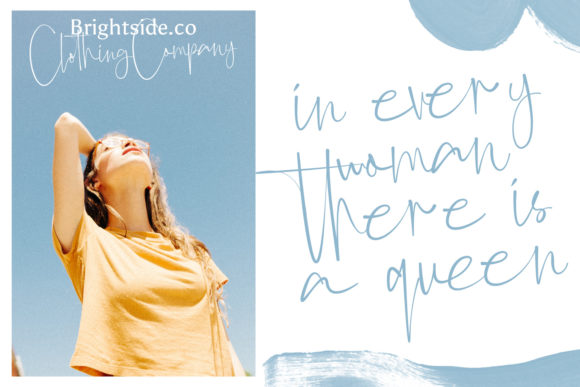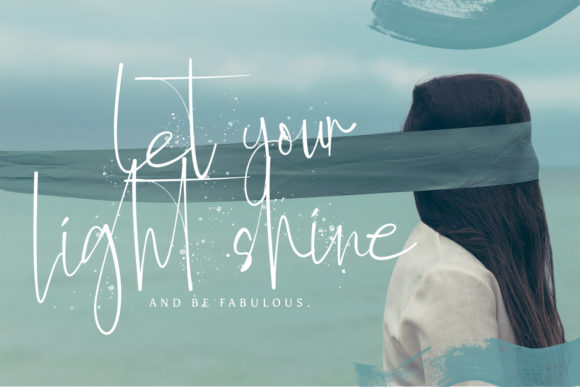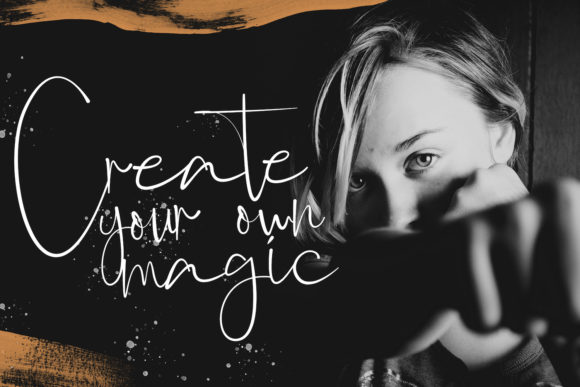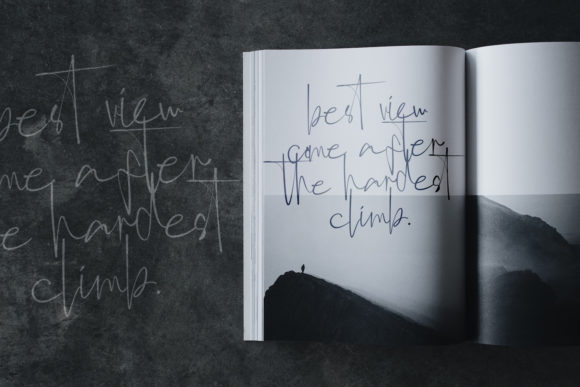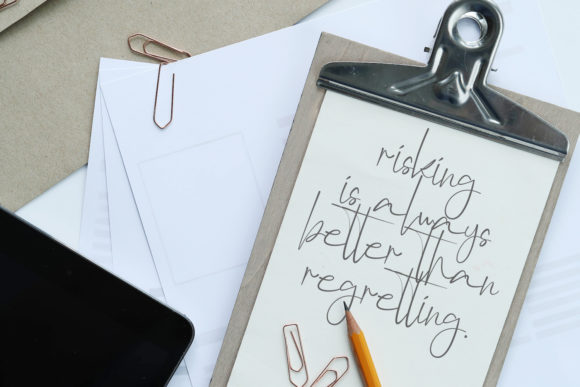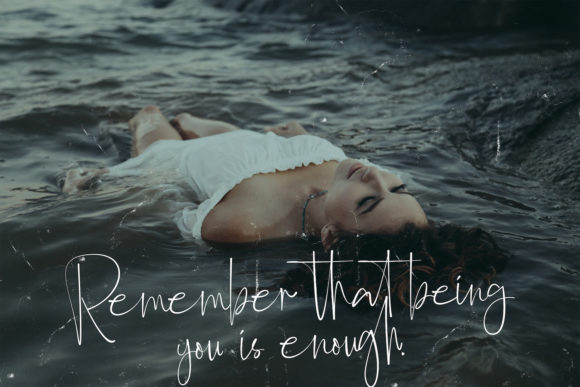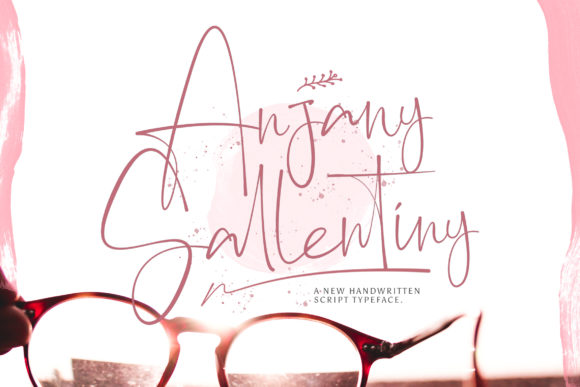
Introducing Anjany Sallentiny Font: Elevate Your Designs with Elegance
In the world of typography, a font can make or break a design. For those seeking a touch of sophistication and elegance, the Anjany Sallentiny Font is a game-changer. This stylish script font is perfect for designers and crafters looking to add a handwritten flair to their projects. Whether you’re working on wedding invitations, thank you cards, quotes, greeting cards, logos, or business cards, Anjany Sallentiny is the ideal choice.
What Makes Anjany Sallentiny Stand Out?
Anjany Sallentiny is not just another script font; it’s a statement piece. Its elegant strokes and beautiful swashes bring a level of sophistication that is hard to match. The font’s versatility allows it to be used in a variety of design projects, from formal events like weddings to more casual applications such as branding and advertising.
Key Features of Anjany Sallentiny Font
- PUA Encoded: One of the standout features of Anjany Sallentiny is that it is PUA (Private Use Area) encoded. This means that accessing the additional glyphs and swashes is incredibly easy, giving designers the flexibility they need to create unique and personalized designs.
- Stylish and Elegant: The font’s stylish and elegant appearance makes it perfect for designs that require a touch of class. Its script style is both modern and timeless, ensuring that your designs will stand out without looking dated.
- Wide Range of Applications: From wedding planners and stationery designers to branding specialists and digital artists, Anjany Sallentiny can be used in a multitude of projects. Its versatility is one of its most appealing qualities.
Perfect for Wedding and Stationery Designs
Wedding designs require a special kind of elegance, and Anjany Sallentiny delivers. Its beautiful script and swashes make it perfect for:
- Wedding invitations
- Thank you cards
- Wedding programs
- Place cards
For stationery designers, this font offers a way to add a personal touch to any project, making it more engaging and visually appealing.
Enhance Your Brand with Anjany Sallentiny
For businesses looking to create a strong brand identity, typography is key. Anjany Sallentiny can be used for:
- Logos
- Business cards
- Letterheads
- Marketing materials
Its elegant appearance can help elevate your brand’s image, making it more sophisticated and professional.
Tips for Using Anjany Sallentiny Font
To get the most out of Anjany Sallentiny, here are a few tips:
- Experiment with Swashes: Don’t be afraid to play around with the font’s swashes. They can add a lot of character to your designs.
- Mix and Match: Combine Anjany Sallentiny with other fonts for a unique look. Its script style pairs well with sans-serif fonts for a modern contrast.
- Pay Attention to Spacing: As with any script font, spacing is crucial. Make sure to adjust the spacing between letters and words to ensure your design looks elegant and easy to read.
Anjany Sallentiny Font is a versatile and elegant script font that can elevate any design project. Its PUA encoding, stylish appearance, and wide range of applications make it a valuable addition to any designer’s toolkit. Whether you’re working on wedding invitations, branding materials, or digital art, Anjany Sallentiny is sure to impress. So why settle for ordinary when you can make your designs extraordinary with Anjany Sallentiny?